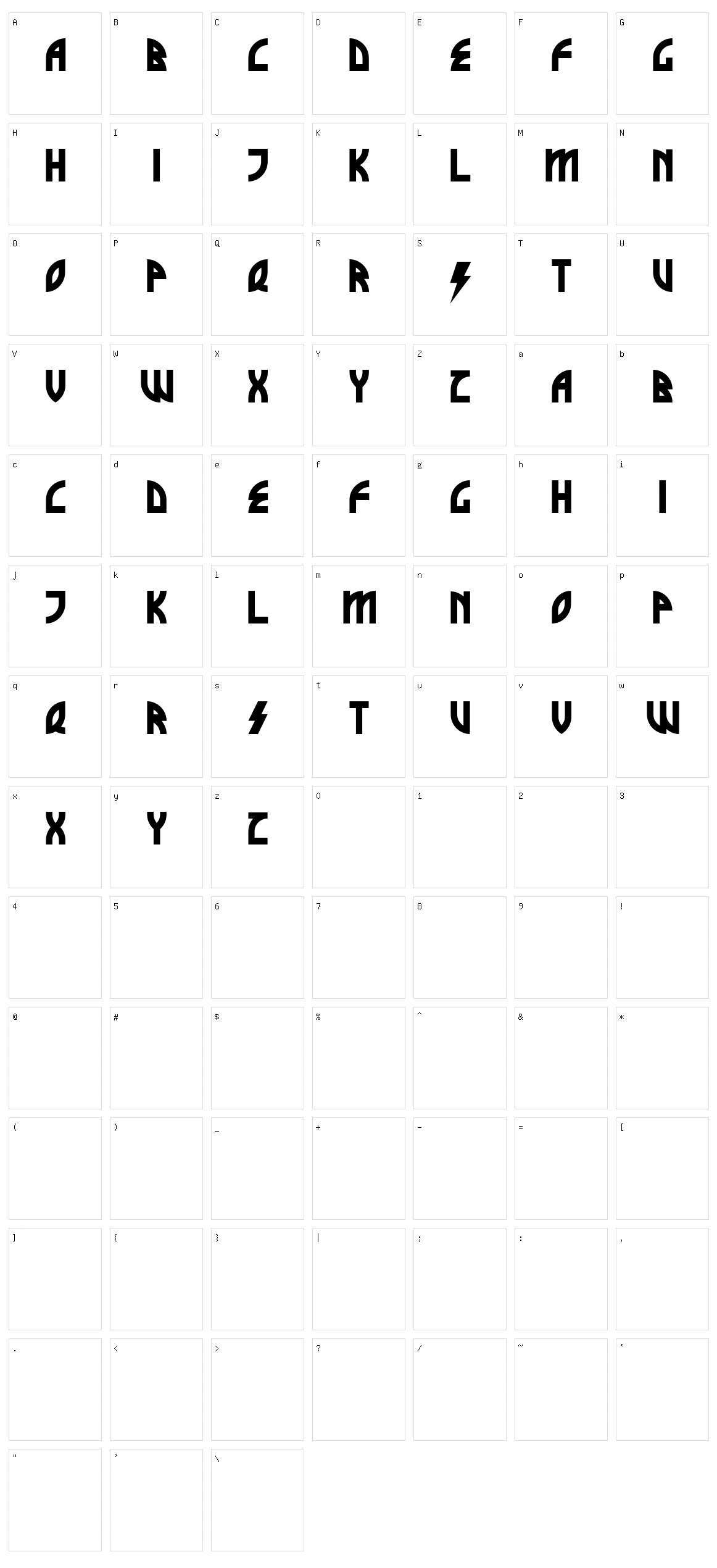
Brothers of Metal
Description: The free font Brothers of Metal is carefully designed by defaulterror, showcasing a thoughtful balance of creativity and usability and belongs to the Gothic font family. When you download the ZIP file, it contains only 5.58 KB of font files, making it lightweight and quick to download. Please review the license details below to understand permitted usage and distribution rights. If license information is not available, we recommend using this font for personal projects only or contacting the author directly for commercial usage permissions.
Brothers of Metal Character Set